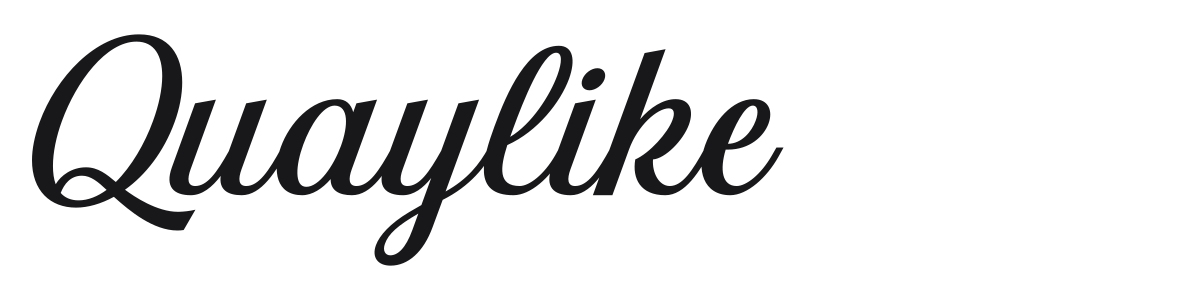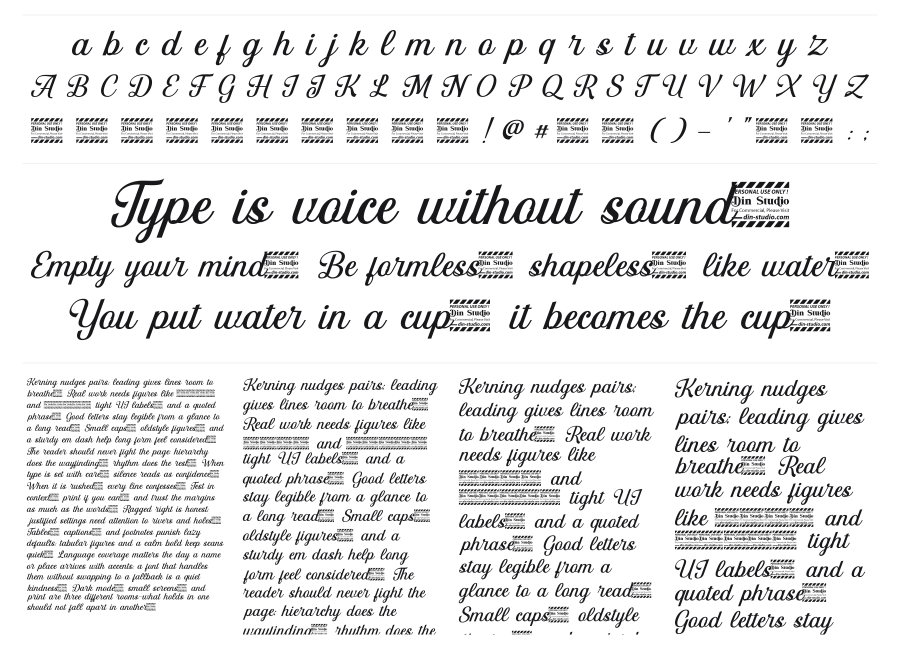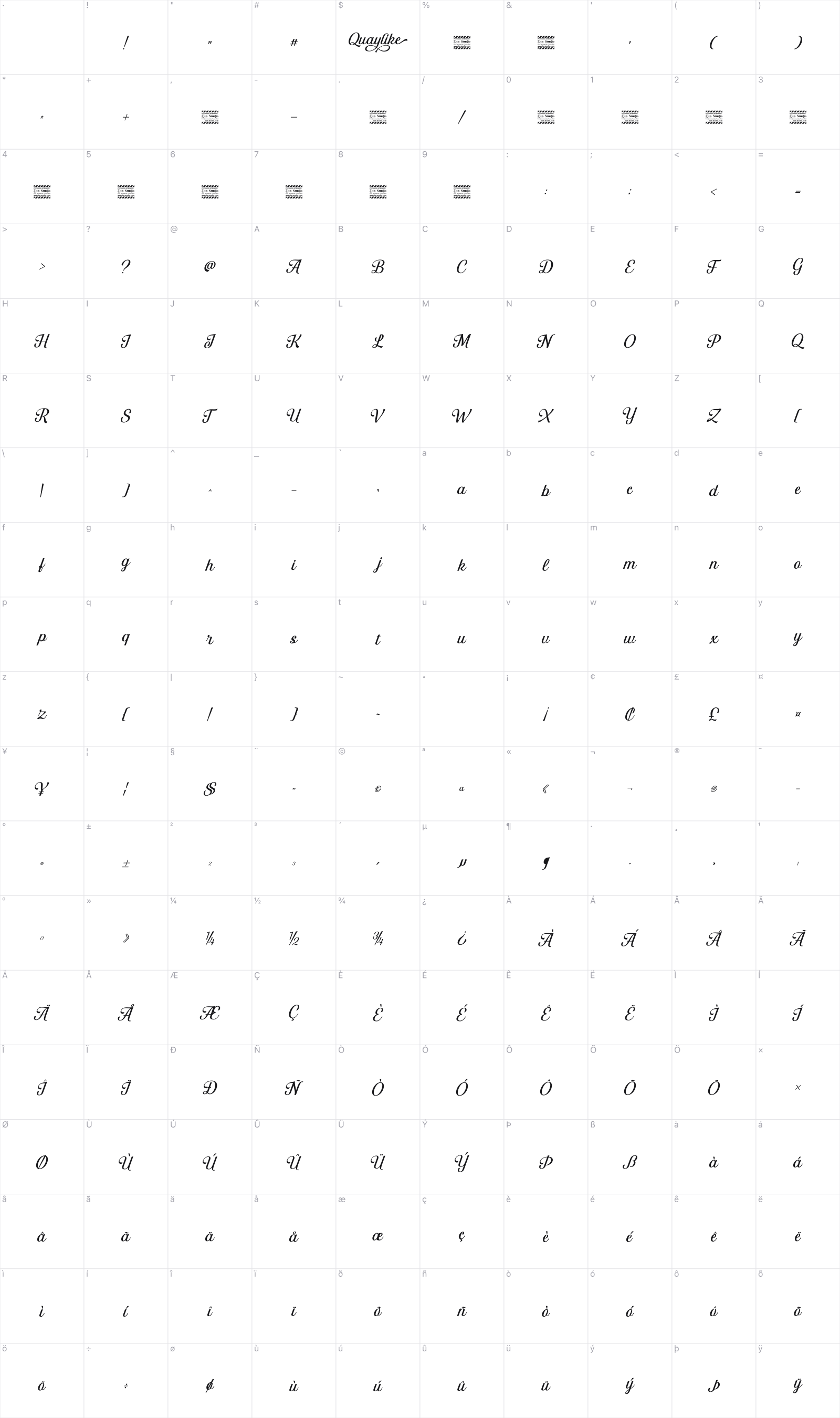
Quaylike
Quaylike is a bold connected script with sweeping loops and a lively retro character. The flowing strokes and generous curves land somewhere between casual warmth and elegant refinement, giving it range across branding, packaging, and editorial headlines. It carries that handcrafted, mid-century feel without tipping into nostalgia cliche.